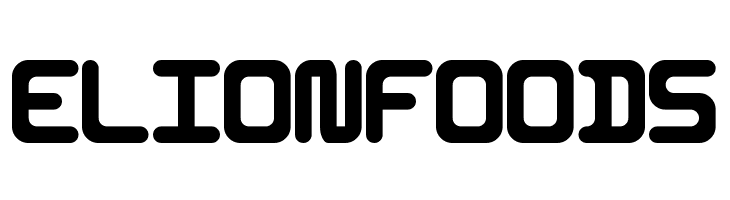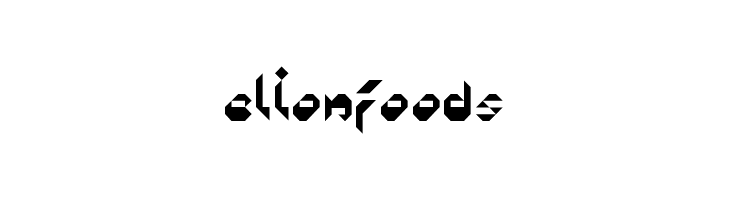
• 5Geomedings Regular
A bold and decorative set of geometric symbols with high contrast and modern style.
• 5Identification Mono Regular
A bold, monospaced font with a futuristic and geometric design.
• 5Identification Mono Regular
A bold, geometric monospaced font with rounded edges and a modern style.
• 5Kallum Sans Neue Regular
A geometric, modern font with bold, angular characters.
• 5Kreeper Regular
• 5Maach Regular
A bold, rounded font with a modern and playful style.
• 5mal6Lampen
A dot matrix style font with a modern, digital aesthetic.
• 5Megabam Regular
• 5Metrik Black Alien Regular
A bold, angular font with a futuristic, alien-like design.
• 5Metrik Black Condensed Regular
A bold, geometric, and condensed font with a futuristic and industrial style.